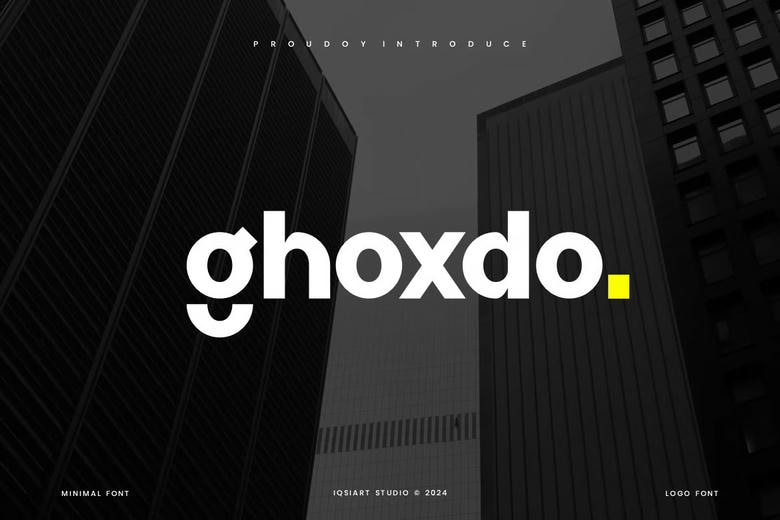
Ghoxdo Font
Ghoxdo is an authentic and best display font. For your different needs this font can help you. We offer different themes and font styles. If you need the various variety of themes as well as the different type of fonts they have, please feel free to visit our profile.
Ghoxdo Sans Serif Font